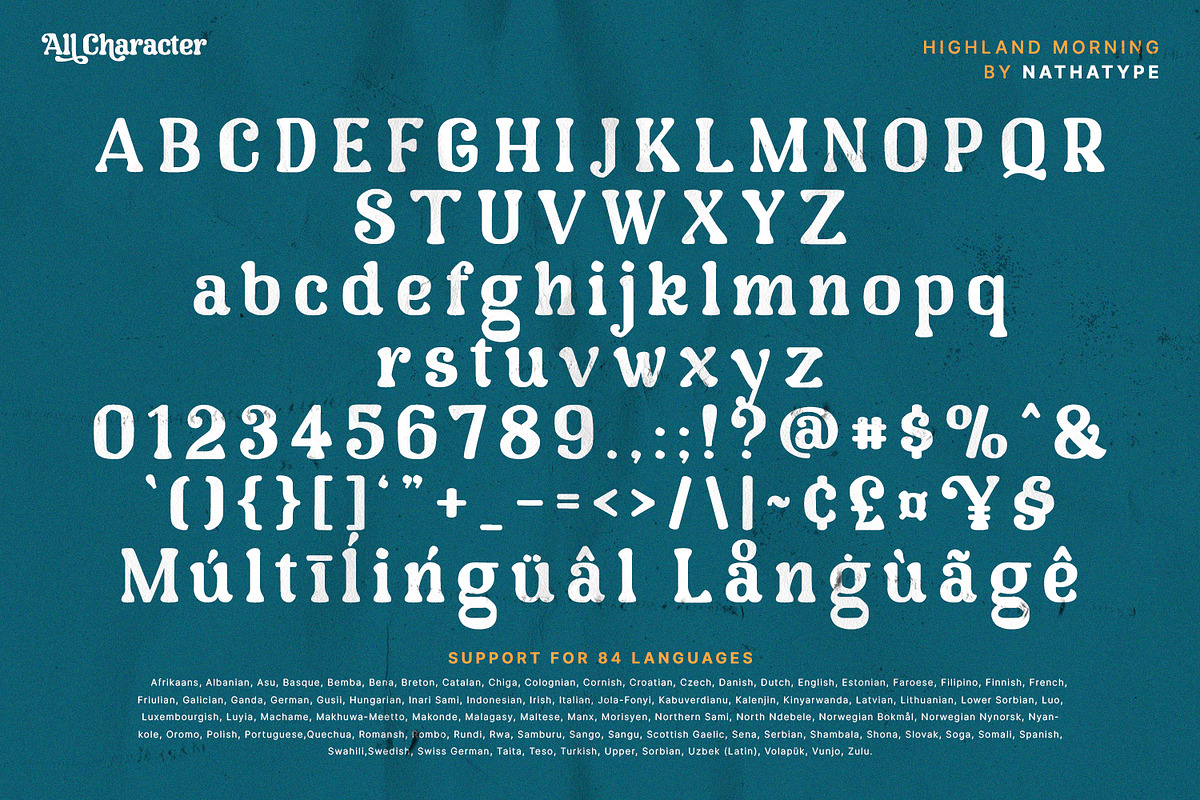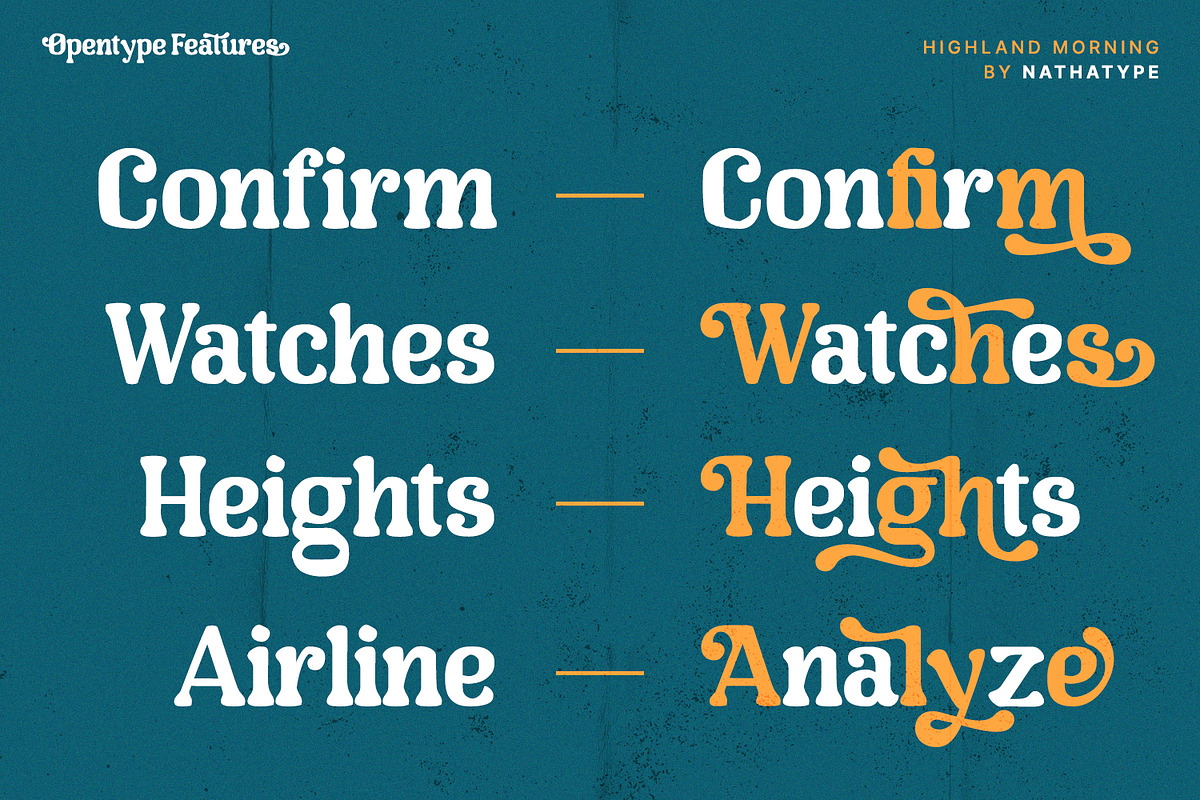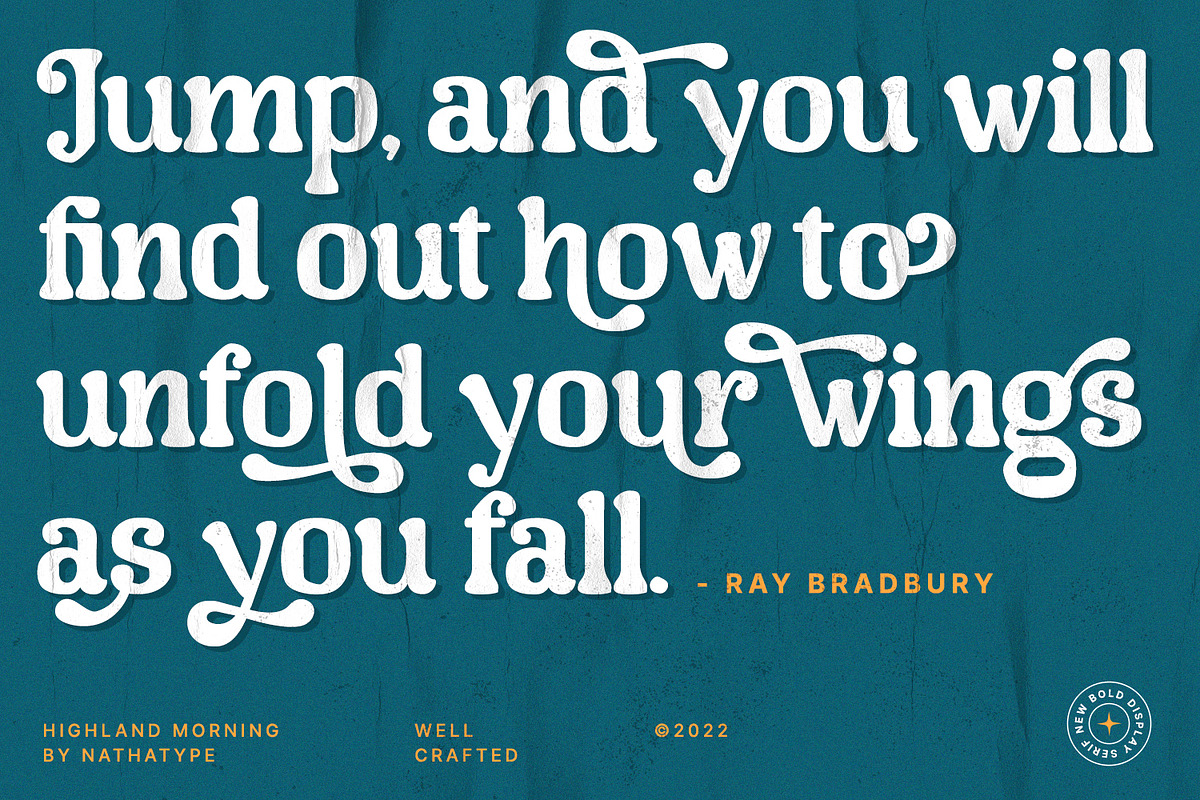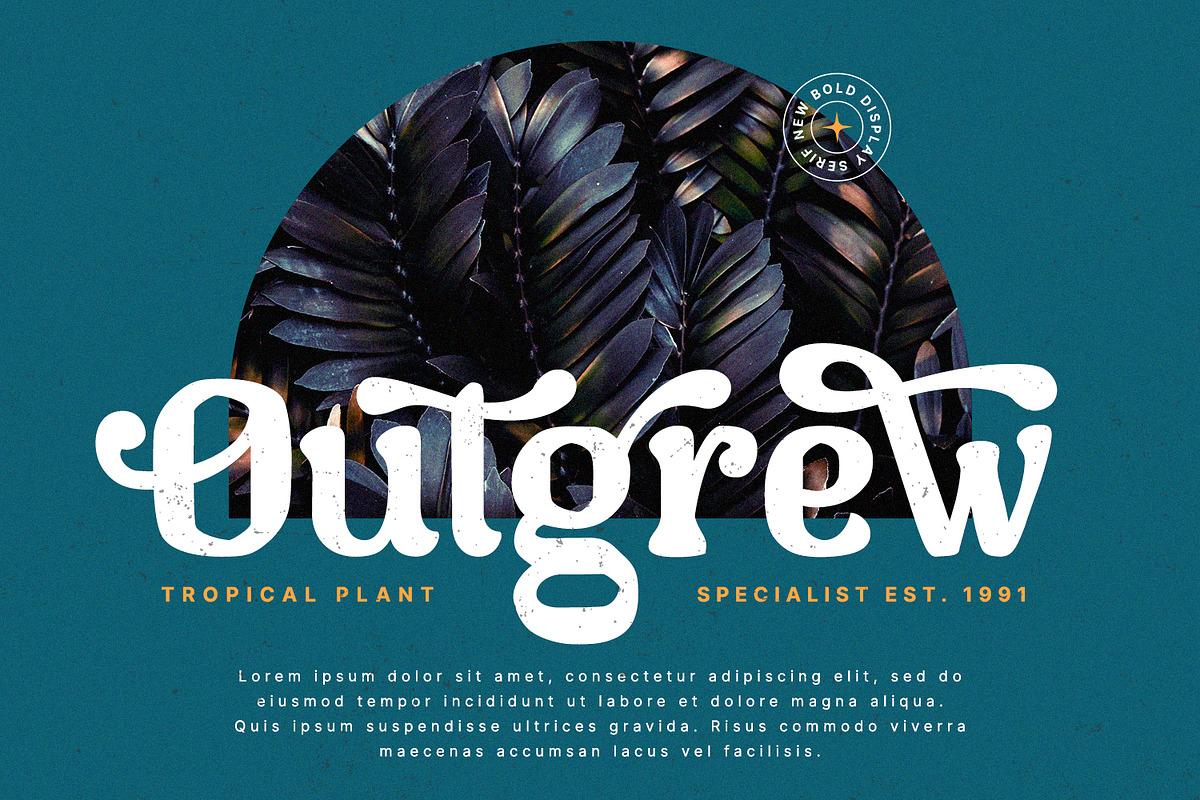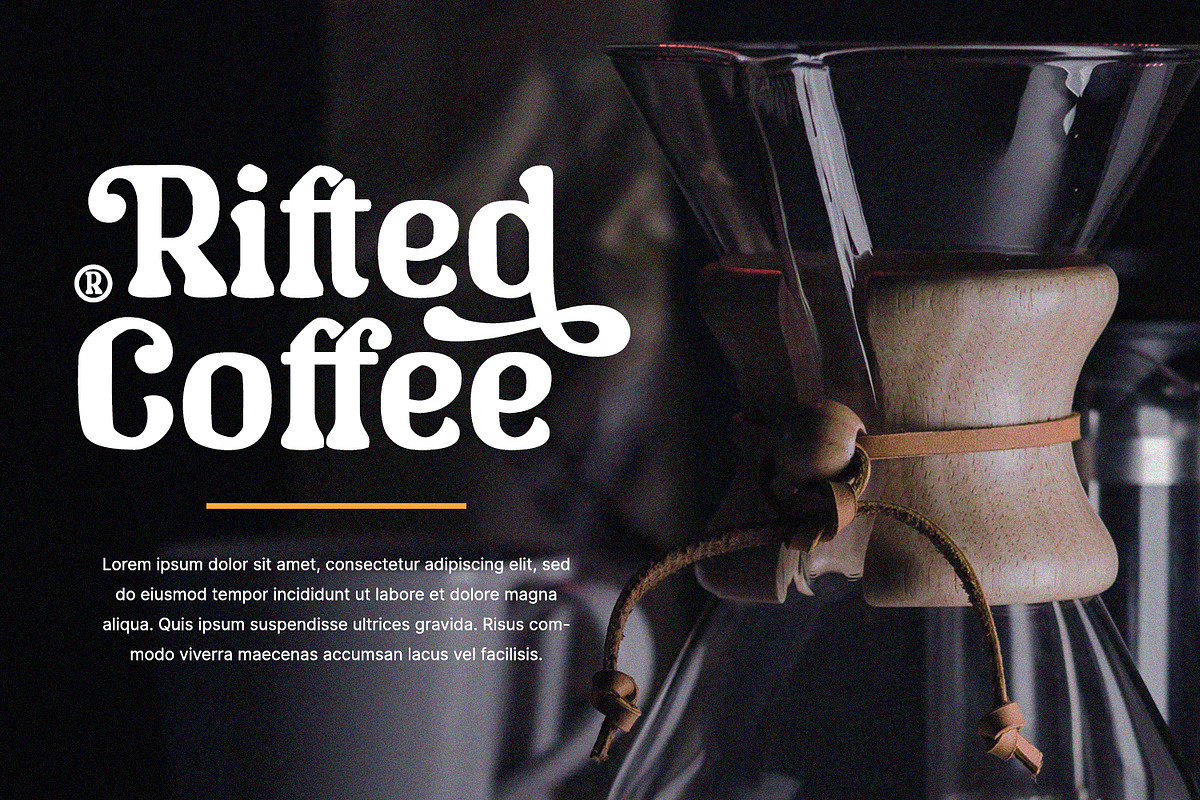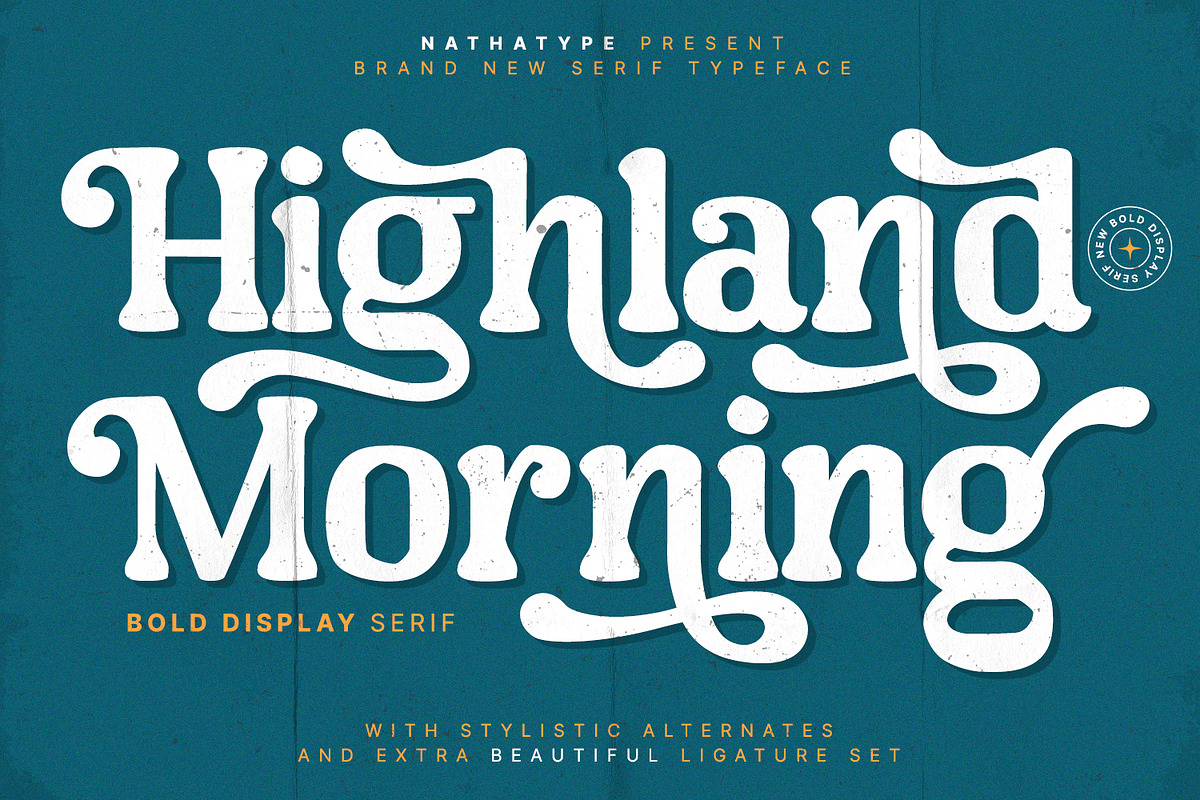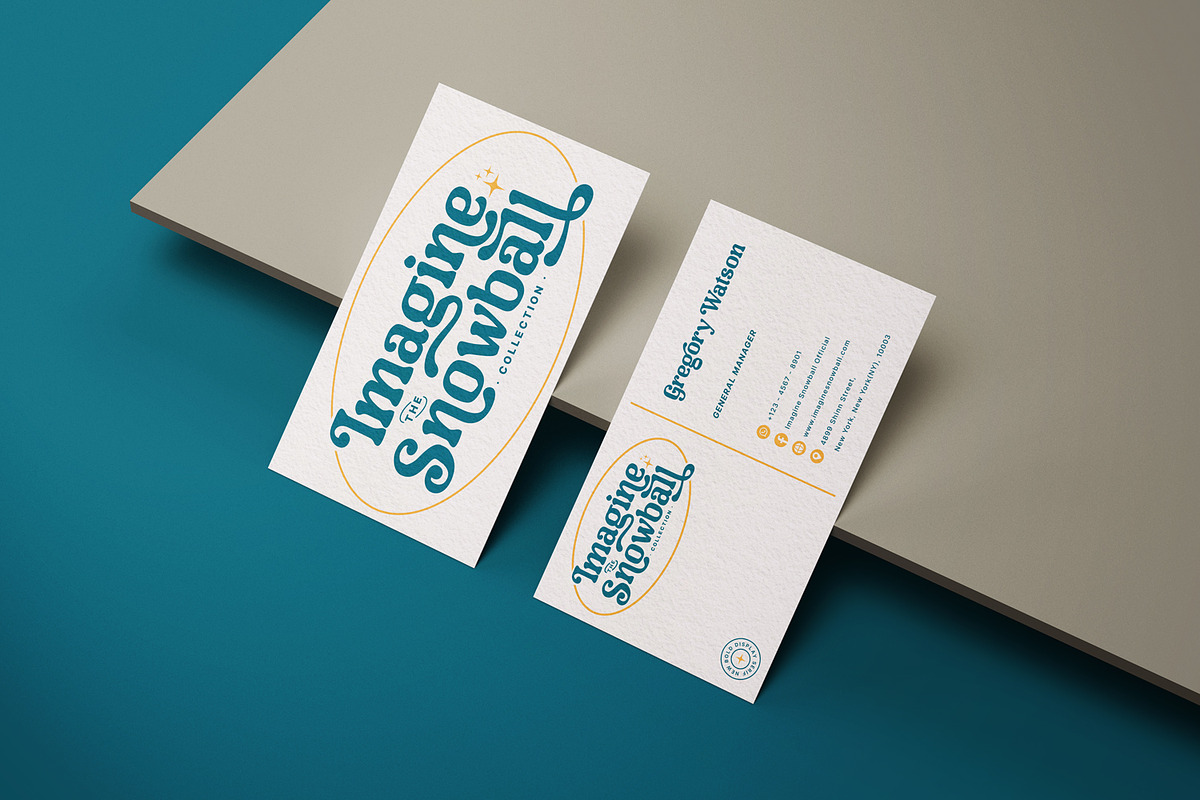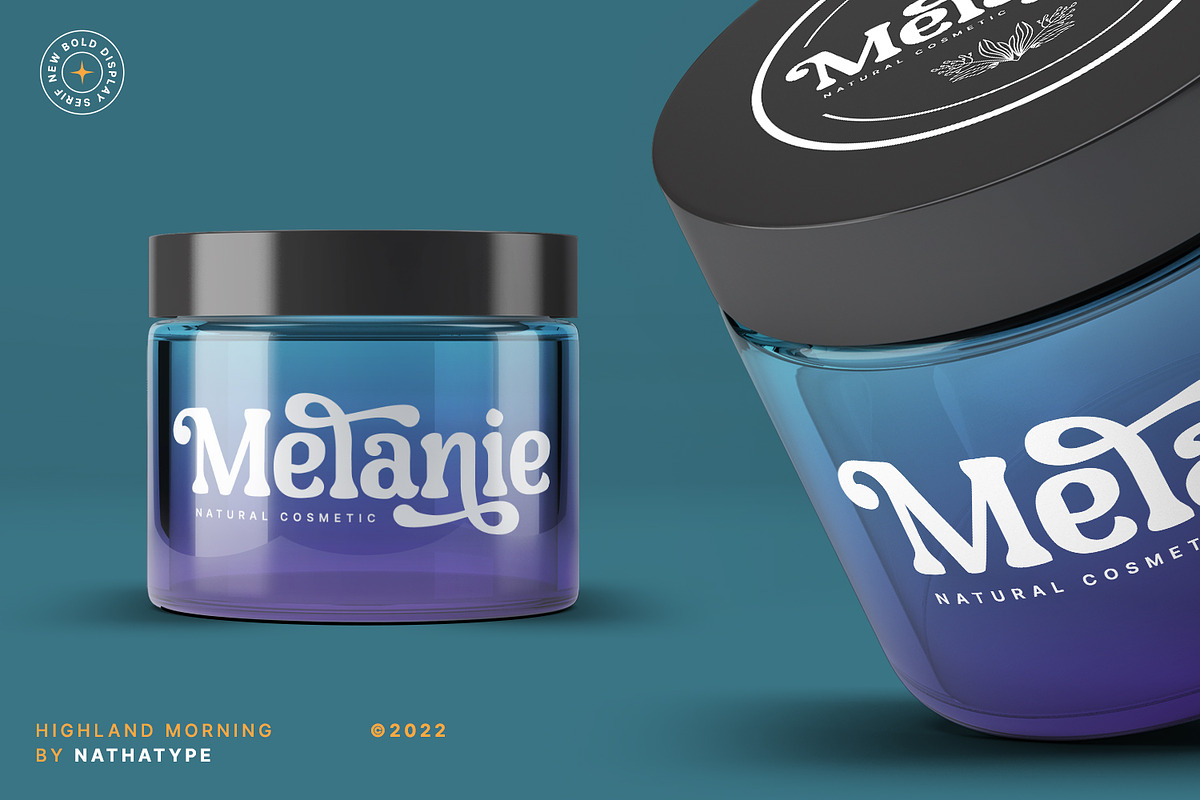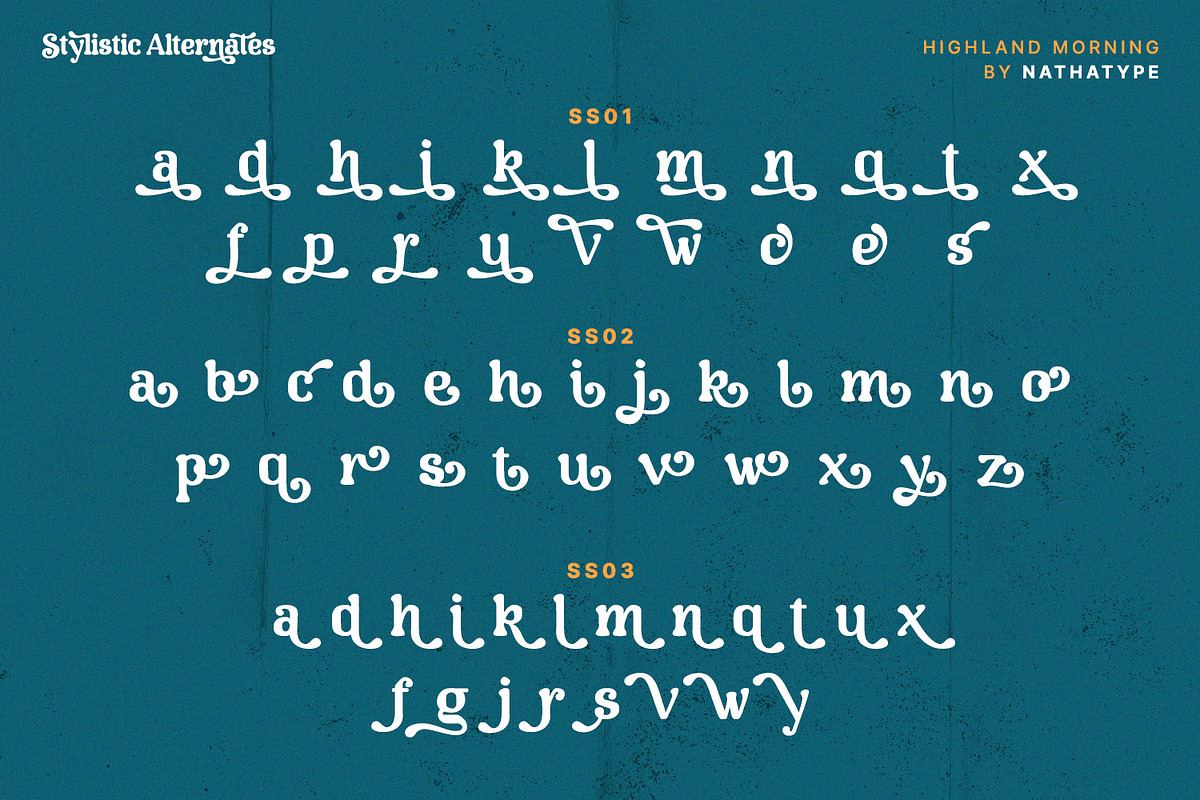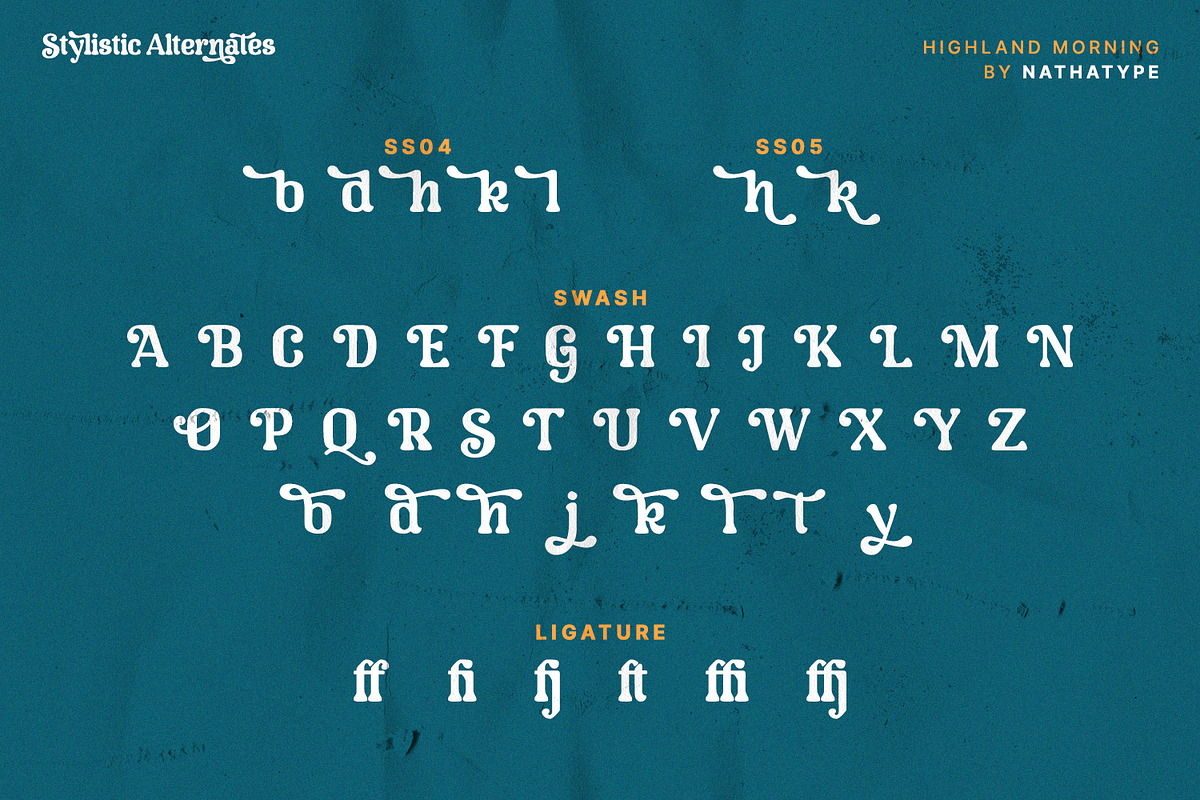
Highland Morning
Highland Morning is a thick weight serif font in slight watercolor or ink textures with fun retro nuance and complex styles. Its main characters are the addition of small lines/hooks on the top or bottom of the letter and the curvy ending wipes on some of the letters’ edges. With a number of alternative symbols, Highland Morning provides your designs with unique edges and has other interesting features you can utilize.
- Stylistic Sets
Highland Morning fits for any design projects, such as posters, banners, logos, book covers, album covers, invitations, quotes, greeting cards, name cards, headings, printed products, social media, etc. Find out more ways to use this font by taking a look at the font preview. Thank you and happy designing.